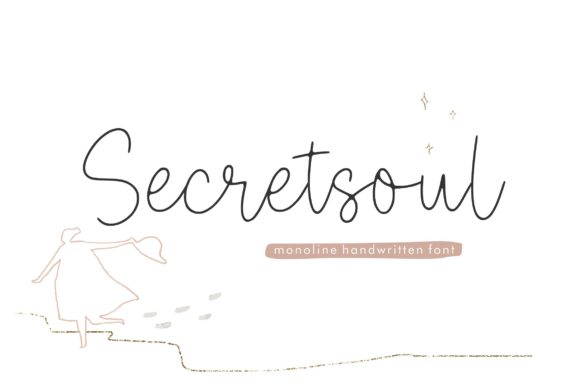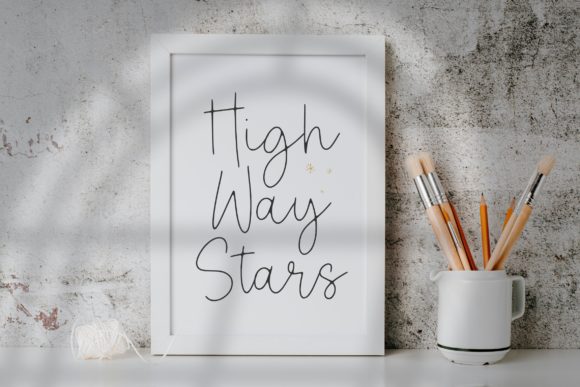
Secretsoul Monoline is a thin lettered, refined script font that emanates sophistication and elegance. Its stylish alternates and ligatures make this font the perfect match for any project.
Secretsoul Monoline Font